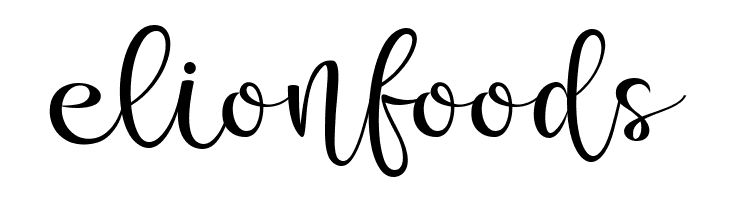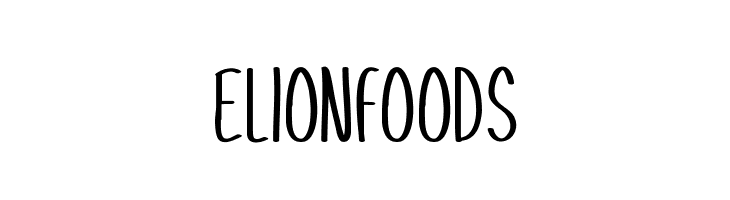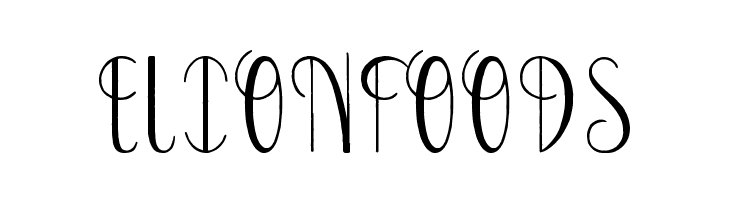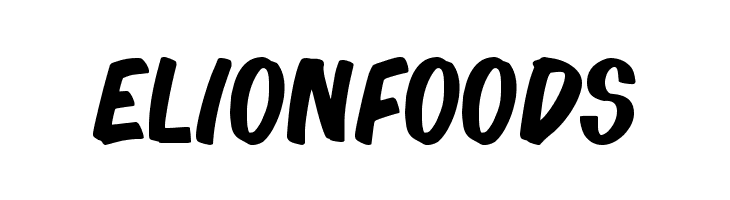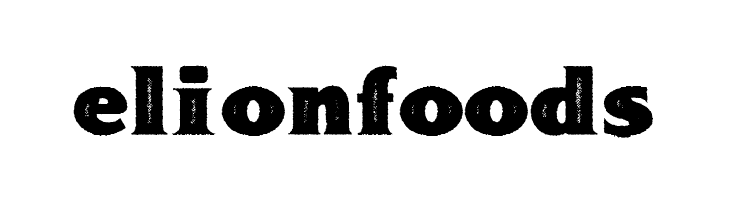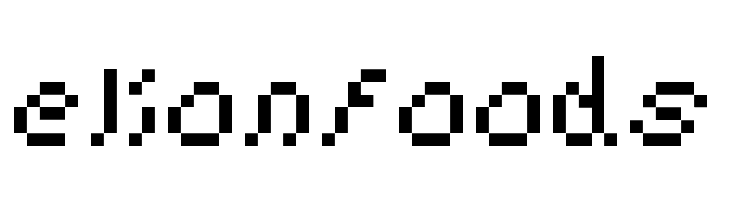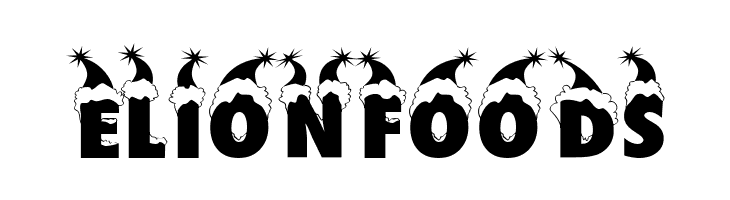
A bold, dynamic script font with flowing cursive letterforms and medium contrast.
A bold, textured font with a vintage, distressed style.
A whimsical and decorative font with elongated, curved strokes and playful flourishes.
A pixelated, retro-style font with a blocky, digital aesthetic.
A bold, decorative font with high contrast and artistic flair.
A bold, playful font with rounded strokes and a dynamic slant.
A lively and elegant script font with smooth, flowing curves.
A playful handwritten font with a modern, casual style.